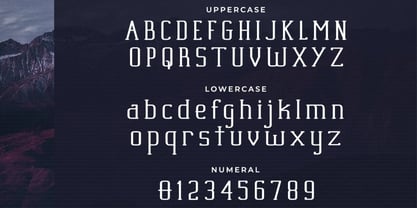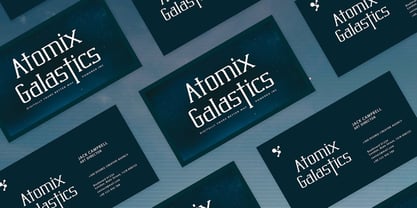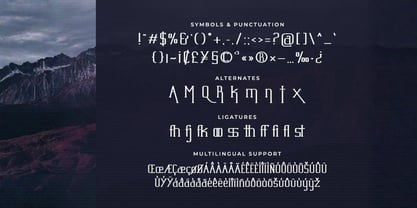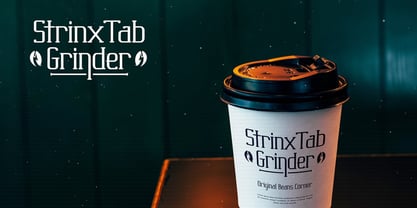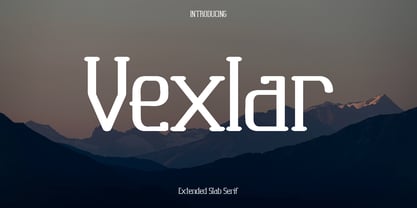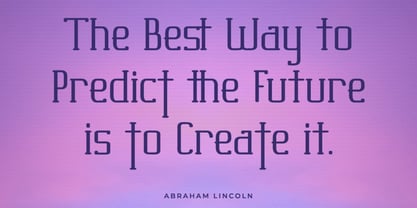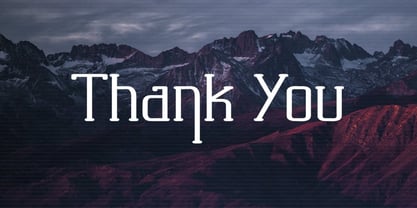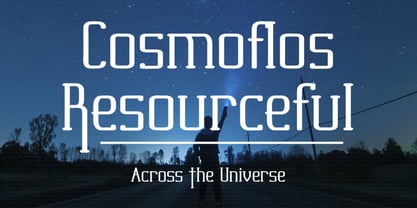
Vexlar
by Only Fonts
The Vexlar Font Family was designed by Olivia Love and published by Only Fonts. Vexlar contains 1 styles. More about this family
Vexlar is a sophisticated extended slab serif that blends industrial strength with refined elegance. Wide letterforms, confident slabs, and calibrated spacing give headlines a commanding presence, while subtle curves keep the tone modern and approachable. Inspired by contemporary editorial and fashion typography, Vexlar was drawn for projects that need clarity with character: logos that read with authority, jackets and posters that punch off the page, and futuristic themes that balance precision with style. Use it when you want a serif that feels bold, sleek, and unmistakably current. Where it shines: - Branding systems and logotypes for tech, fashion, hospitality, and contemporary retail identities that demand a memorable silhouette. - Editorial and marketing: magazine covers, section openers, title cards, and large pull quotes that require impact and polish. - Campaign visuals and posters: strong typographic hierarchies, layered headline stacks, and tight grids. - Packaging and display signage where legibility at distance meets a premium, designed voice. Standout features: - Uppercase and lowercase with extended proportions for panoramic wordmarks and striking titles. - Symbols and punctuation shaped to match the slab geometry for cohesive display typography. - Lining numerals that align cleanly for dates, SKUs, and data callouts. - Useful ligatures that resolve tricky pairs and enhance visual flow in compact settings. - Alternates to vary tone from editorial elegance to futuristic edge without leaving the family. - Multilingual support so a consistent brand voice travels confidently across regions. Choose Vexlar when strong, wide serifs and a contemporary finish are the brief. It elevates headlines, logos, jackets, posters, and forward‑looking concepts with a disciplined structure and a refined, fashion‑grade presence.
Designers: Olivia Love
Foundry: Only Fonts